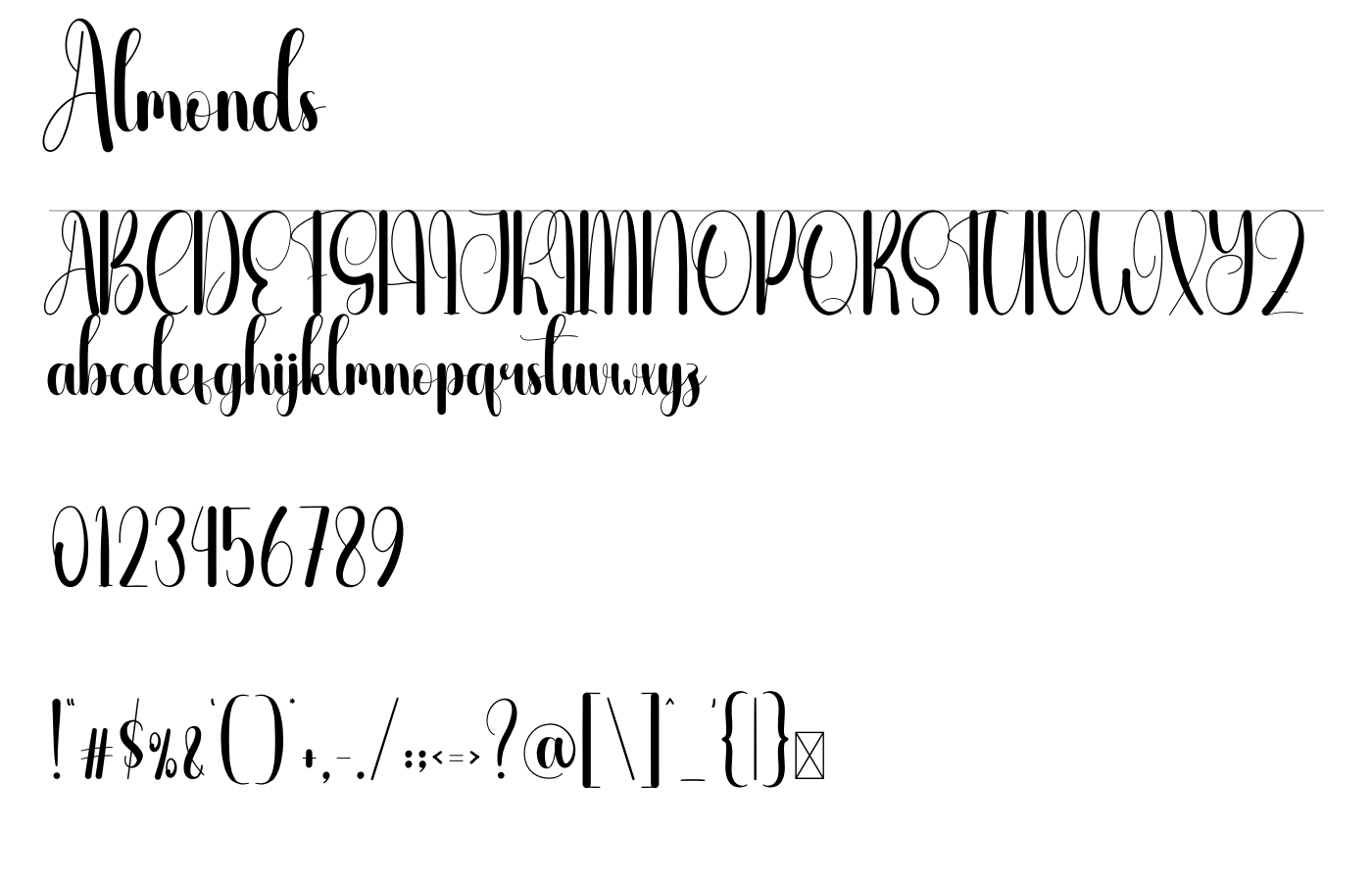
Almonds Font is an elegant, modern script with a high contrast between thick and thin strokes, featuring tall, narrow letterforms and delicate swashes that give it a sophisticated, handwritten feel. Its playful yet refined style makes it perfect for luxury branding, invitations, and creative headlines, where a touch of charm and personality is desired. This font stands out in designs that aim to convey elegance and uniqueness with a stylish, feminine touch.
Almonds Font